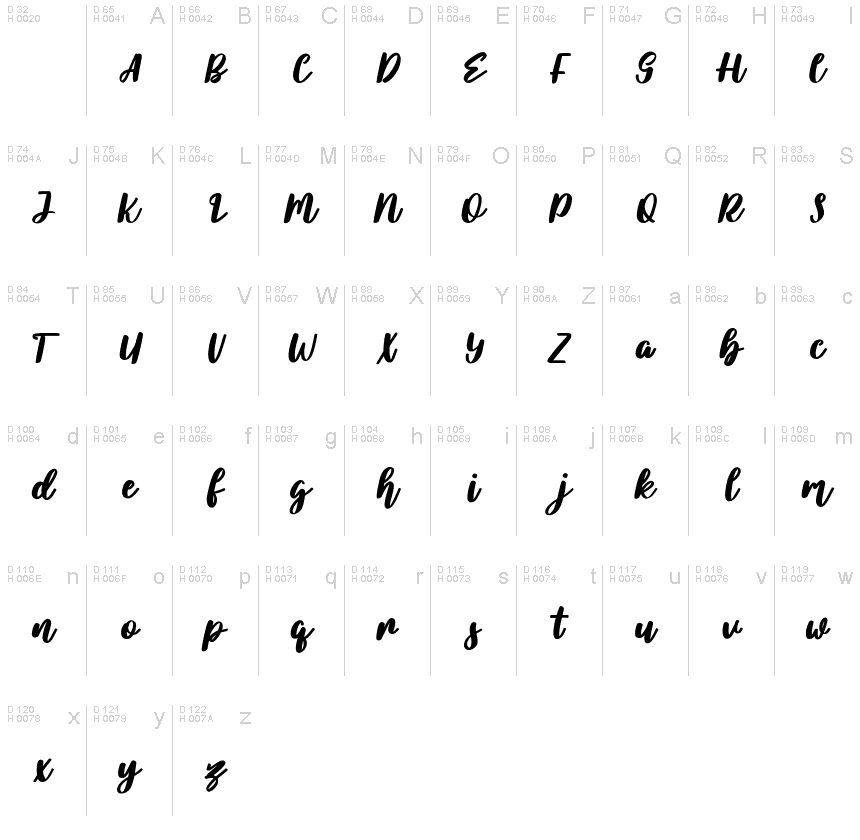
Atherist Free Regular
Atherist, a bold script font designed by Maulana Creative, is the perfect choice for projects that require an elegant and sophisticated touch. With its stylish curves and clean lines, this typeface can elevate any design to new heights of professionalism. The bold weight of Atherist makes it ideal for headlines, logos or any project that requires a statement-making font. Its versatility also makes it suitable for wedding invitations, branding materials, packaging designs and more. With Atherist's unique style and excellent legibility, you can create striking designs that capture your audience's attention effortlessly.